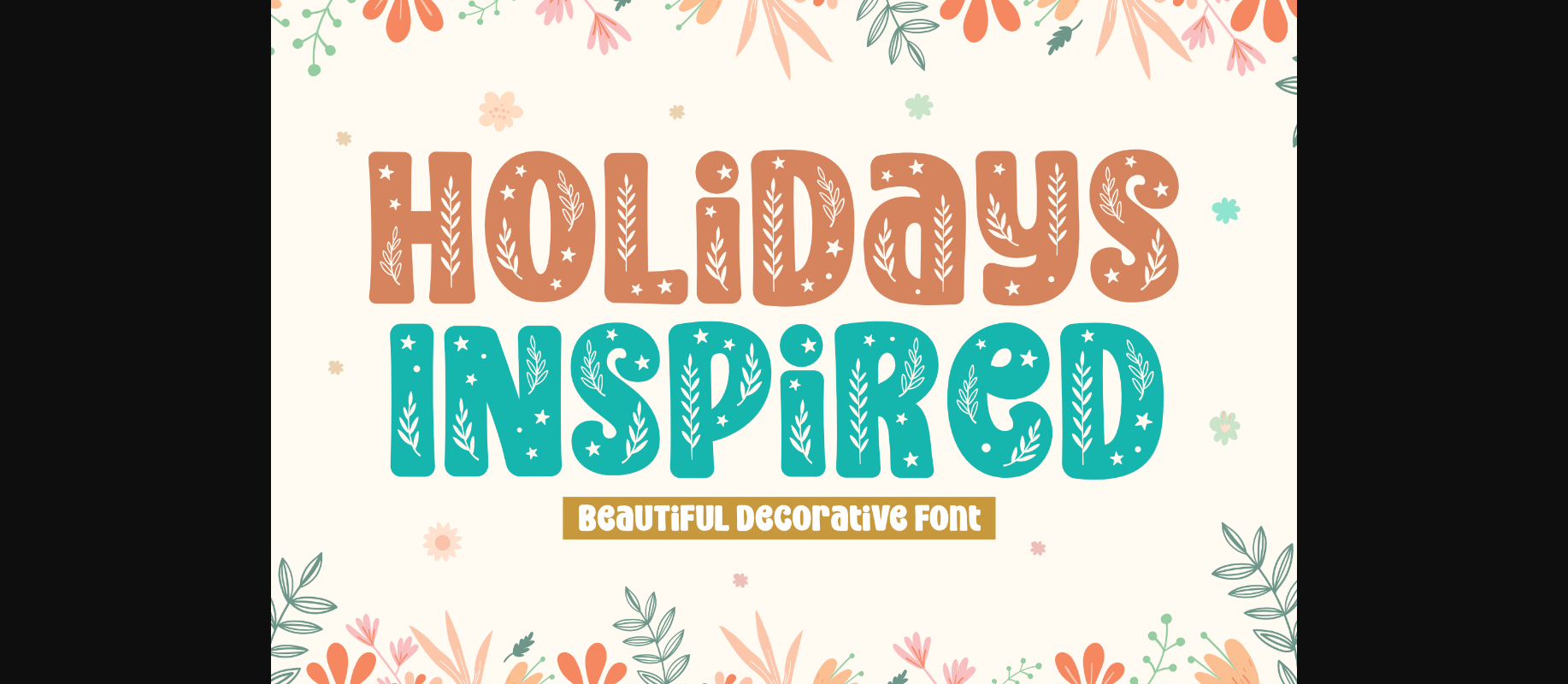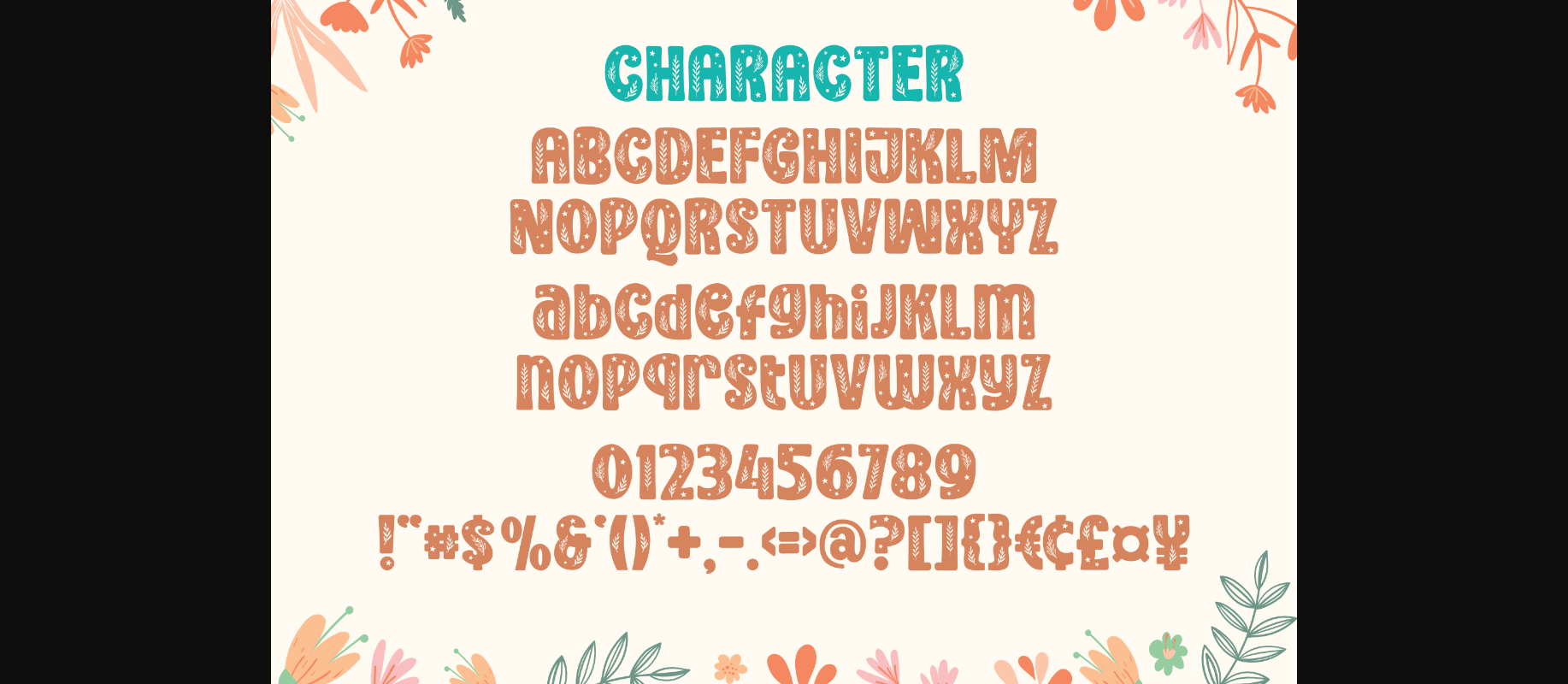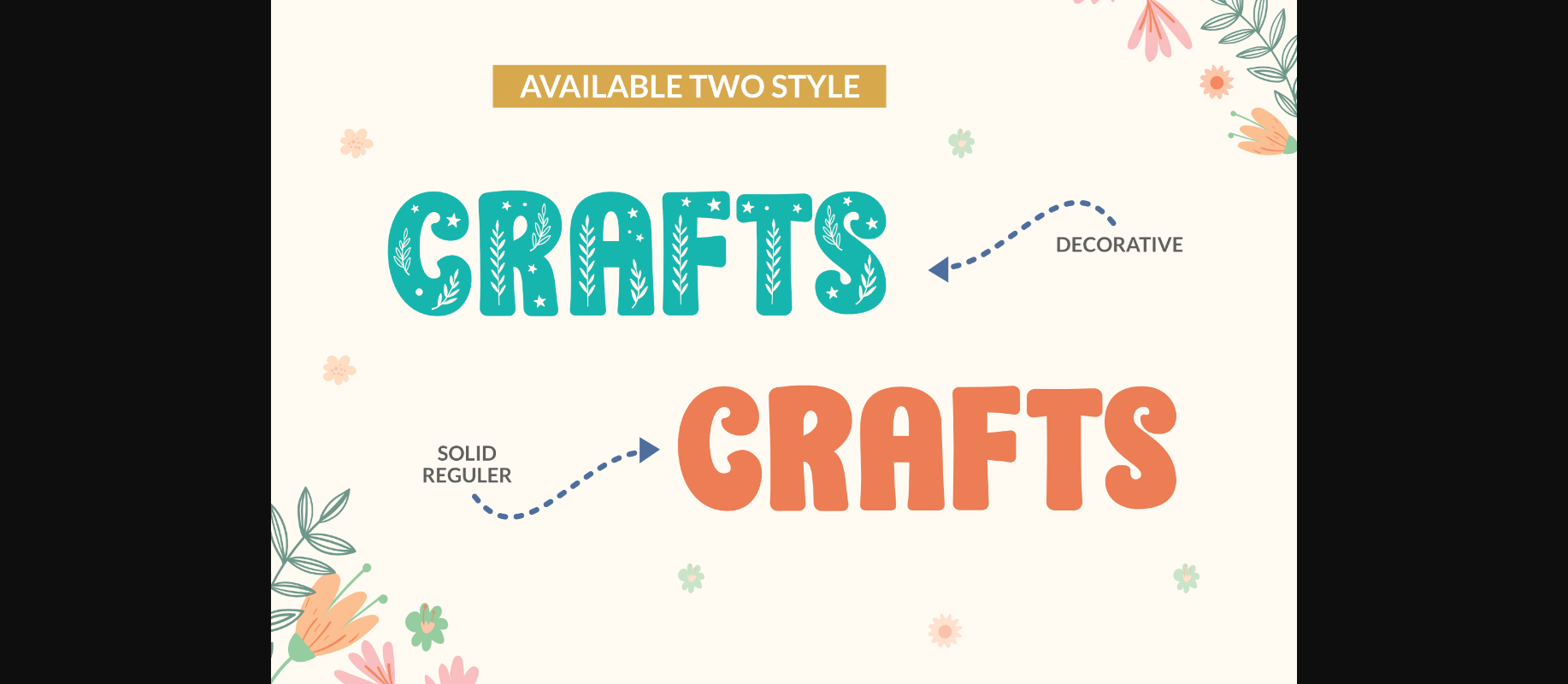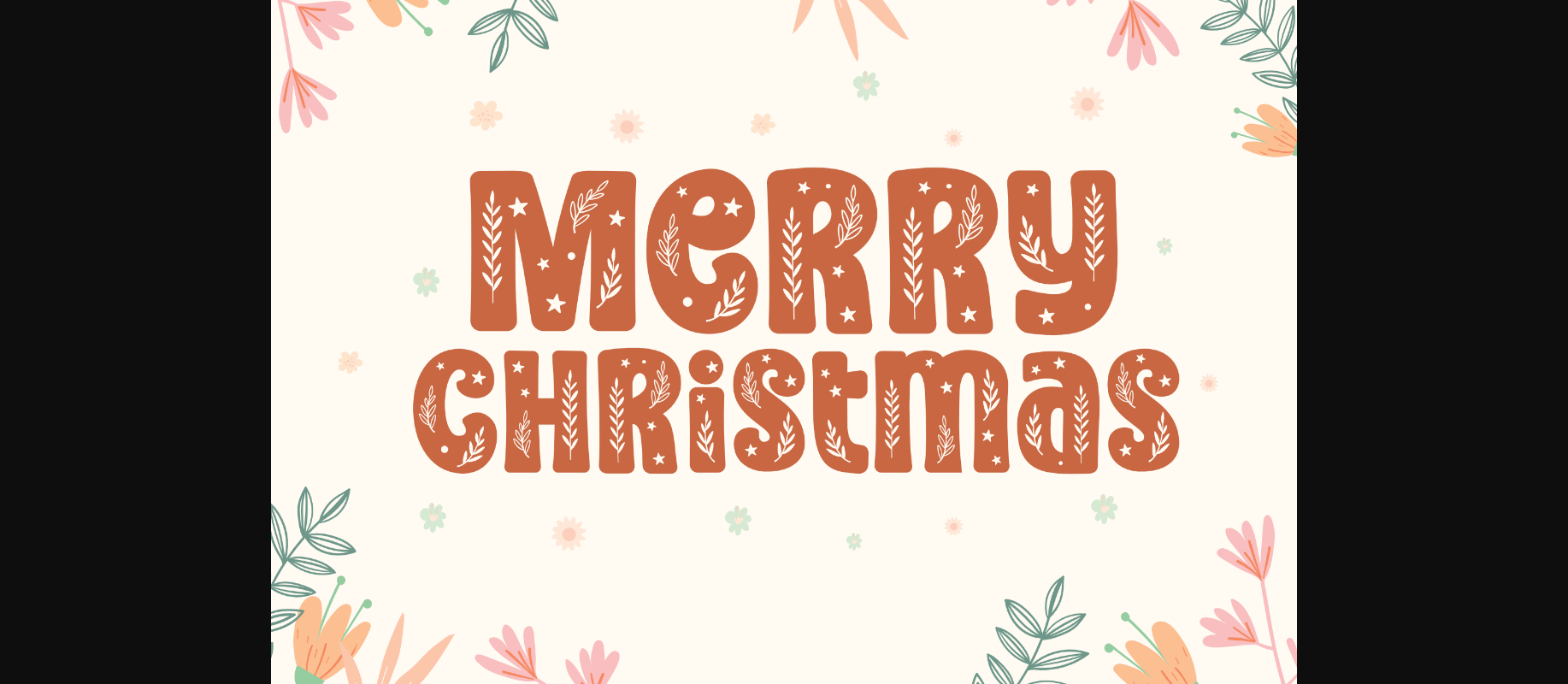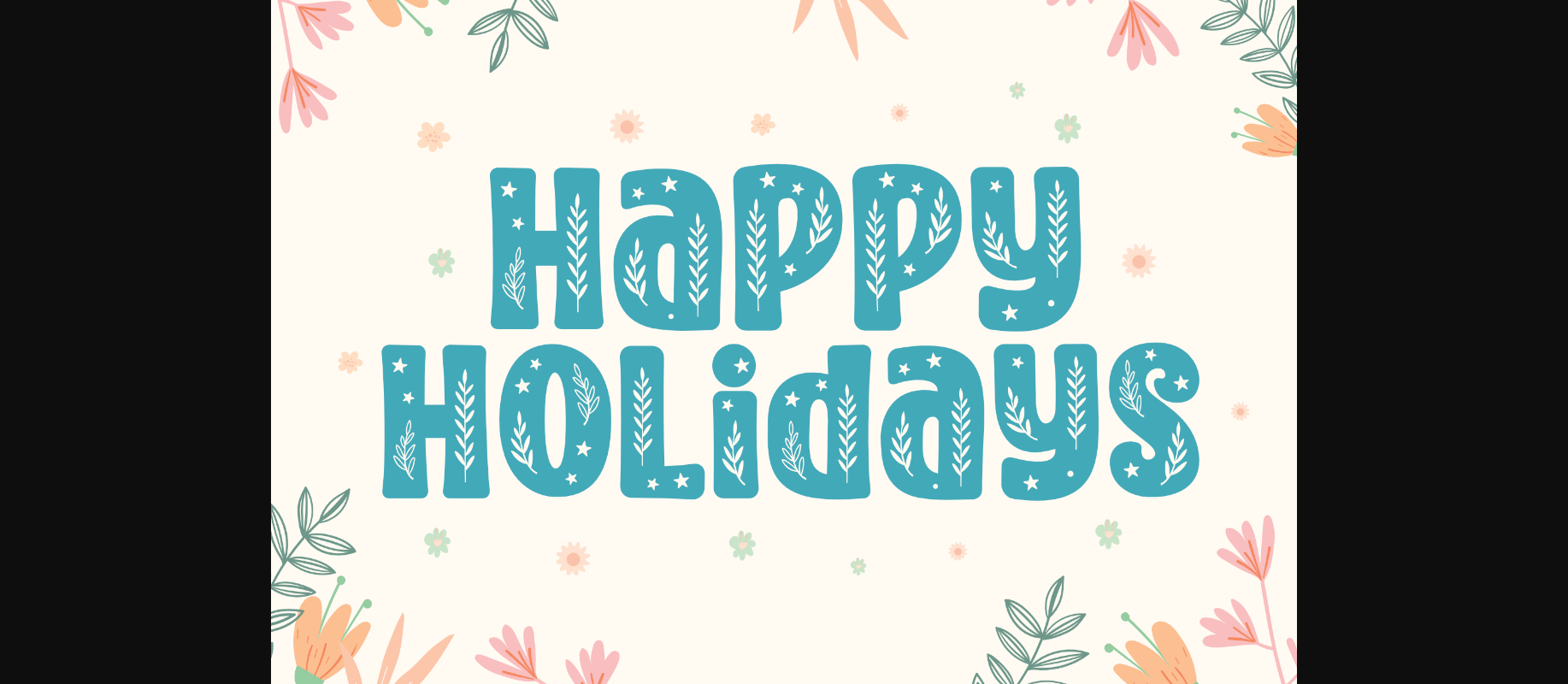
Holidays Inspired Font
About Holidays Inspired Font
Holidays Inspired is a cool, bold and thick lettered decorative font. Whether you use it for cartoon related designs, children games or just any creation that requires a lovely touch, this font will be an amazing choice.